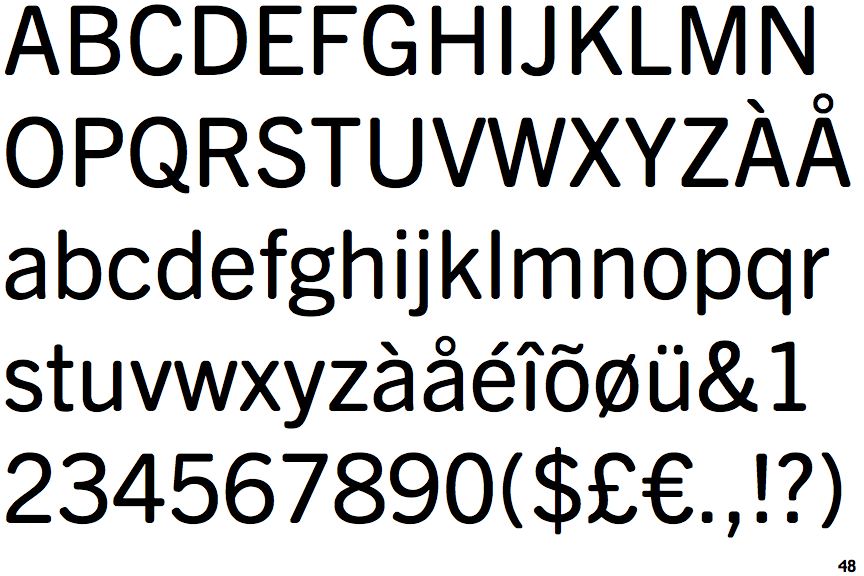
Specify personal condensed bold font; You can download trade gothic font family free including the font weights like regular, bold, black, medium, condensed with matching italics. It was basically created as a condensed version of benton’s franklin gothic.
It was basically created as a condensed version of benton’s franklin gothic. Try, buy and download any typeface from our collection of fonts similar to trade gothic next. Trade gothic is available in three weights—light, regular and bold—each with matching italics as well as various condensed versions.
All Credit Goes To Jackson Burke, Who In 1948 First Designed The Font.
Is Trade Gothic A Good Font?
Browse our collection of fonts similar to trade gothic lt std bd cn20: The family includes three weights and three widths. A sans serif typeface with 10 styles, available from adobe fonts for sync and web use.